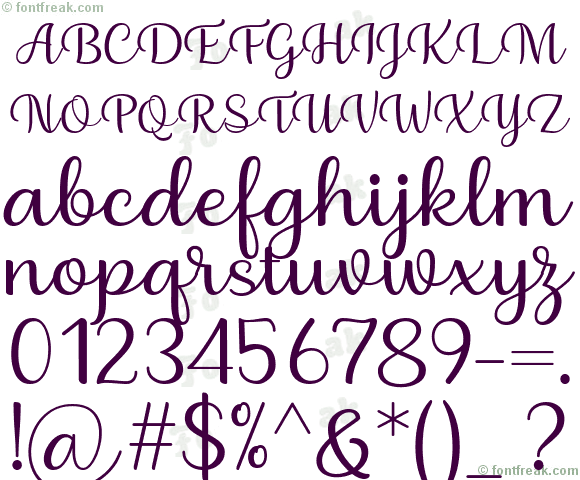
Briany
Briany Italic
About Briany
The Briany font, designed by Situjuh Nazara in 2018, is a captivating display typeface that elegantly blends modern aesthetics with a touch of whimsy. This font is categorized as a decorative style, featuring a unique italic form that adds a sense of movement and fluidity to any text. The stroke weight is consistent, with moderate contrast that enhances readability while maintaining a playful character. The spacing between letters is well-considered, allowing for a seamless flow that makes it ideal for various applications.
Briany's visual characteristics include charming rounded edges and a slightly whimsical flair that sets it apart from standard typefaces. Its distinctive style makes it suitable for a range of creative projects. You might consider using this font for wedding invitations, where its elegant curves can evoke romance and sophistication. It's also an excellent choice for restaurant menus, as it can create an inviting atmosphere that appeals to diners. Additionally, Briany can be effectively employed in movie posters, drawing attention and adding an artistic touch that captures the essence of the film. Content creators looking to enhance their branding or social media graphics will find this font a fantastic addition to their toolkit.
What sets the Briany font apart is its ability to convey personality and charm while remaining functional. It stands out in a crowded market of typefaces, making it a delightful choice for anyone looking to add a unique touch to their work.